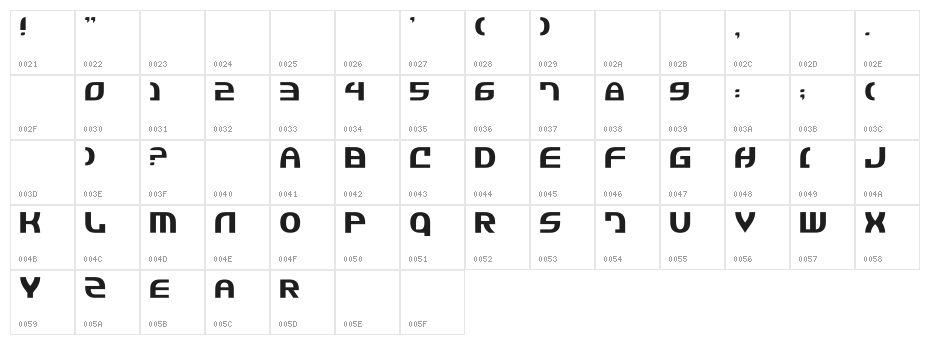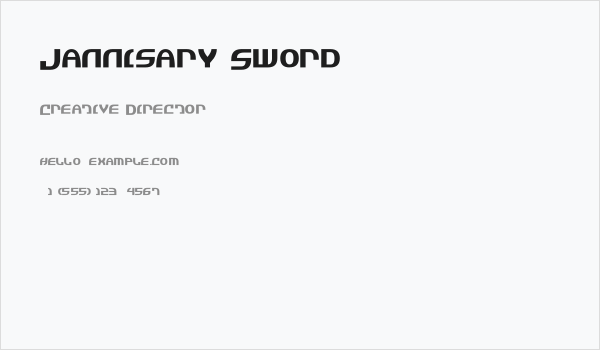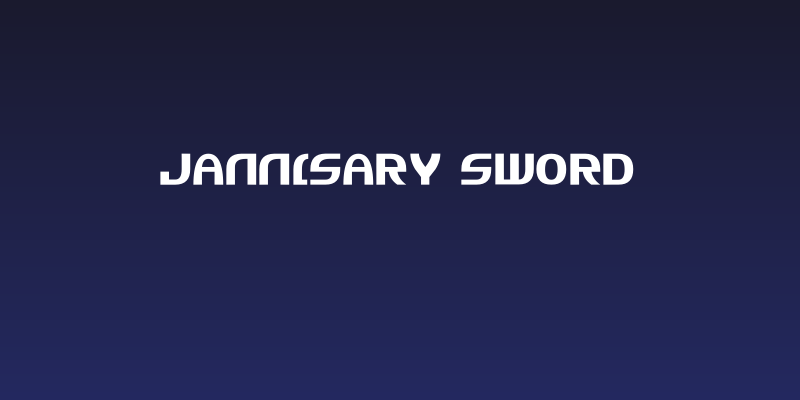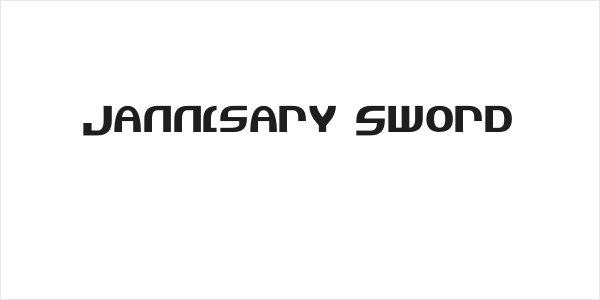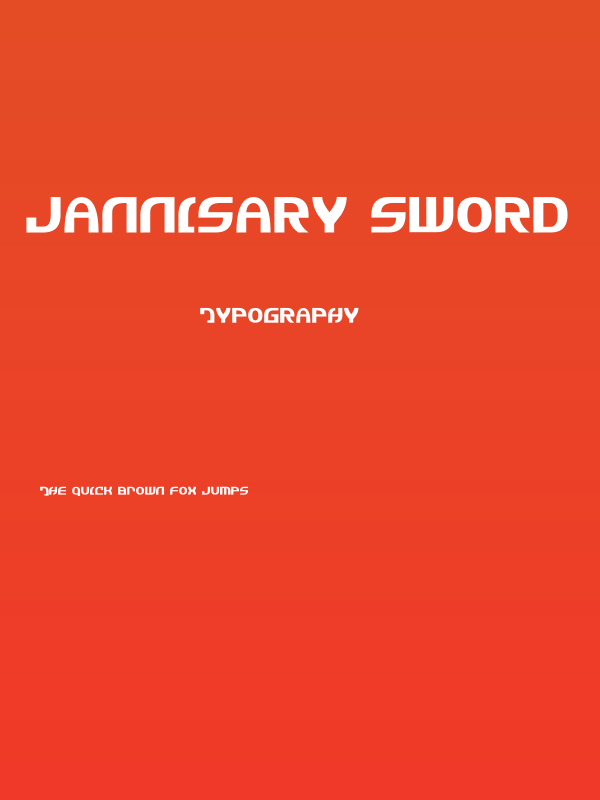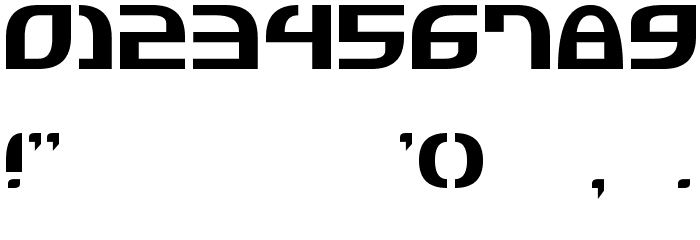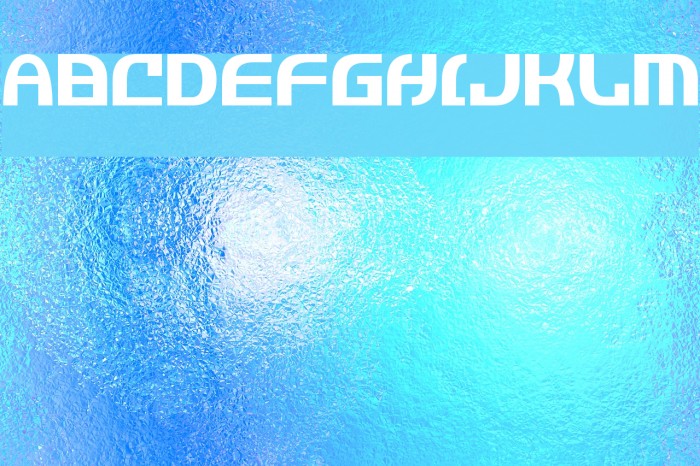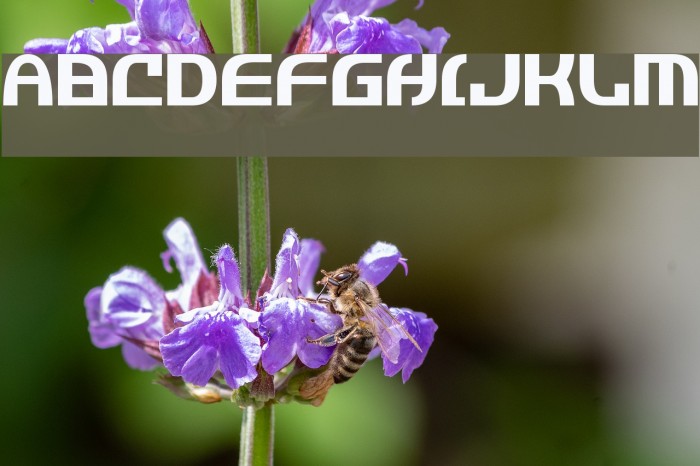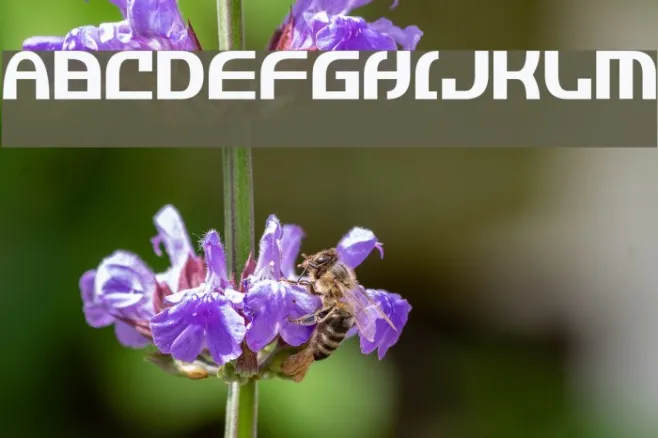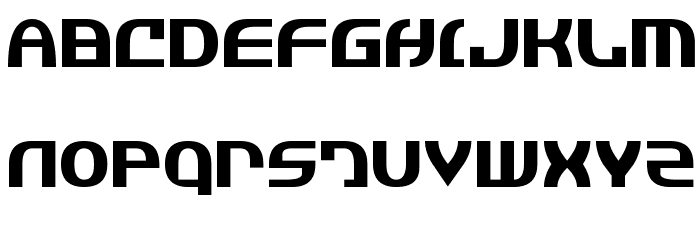
Jannisary Sword Font
Jannisary Sword Description
This font presents a bold and modern aesthetic with a unique geometric structure. The characters are designed with a futuristic flair, featuring sharp angles and clean lines that create a sense of movement and dynamism. The uppercase letters are particularly striking, with a strong presence that commands attention. The lowercase letters maintain the same boldness, ensuring consistency across the typeface. Numbers are equally bold, with a distinctive style that complements the letters. Special characters are included, maintaining the overall design theme. This font is ideal for projects that require a modern and impactful look.